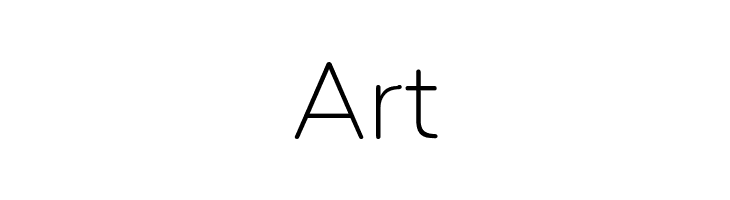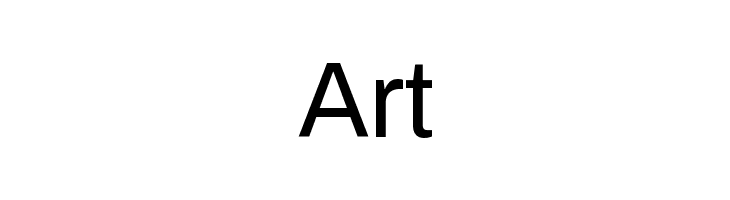
A modern, condensed sans-serif font with uniform stroke width and excellent readability.
A modern sans-serif font with clean lines and excellent readability.
A classic serif font with semi-bold weight and moderate contrast, ideal for formal and readable text.
A clean, modern typeface with balanced proportions and excellent readability.
A classic serif font with a semi-bold weight, combining elegance and readability.
A modern, clean sans-serif font with uniform stroke width and excellent readability.
A bold, modern sans-serif font with excellent readability and balanced proportions.
A clean, modern sans-serif typeface with uniform stroke width and excellent readability.
A robust slab serif font with prominent squared serifs and moderate contrast.
A modern, geometric sans-serif font with clean and readable letterforms.